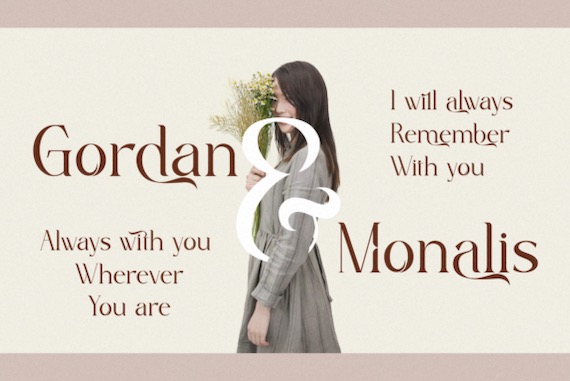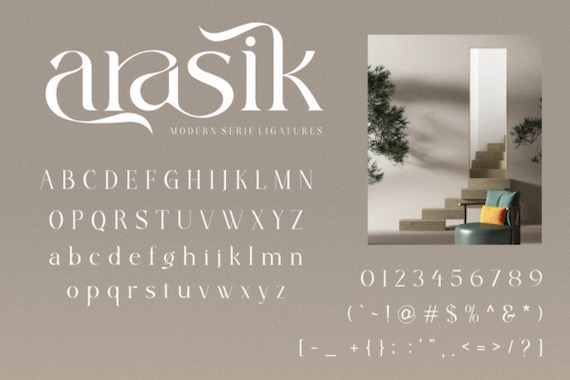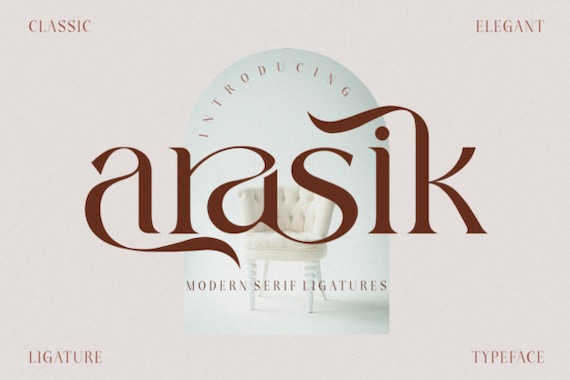
Arasik is a stylish, modern, and light serif font that was created and shared by Penatic Studio. Moreover, this basic font is PUA encoded which means you can access all of the glyphs and swashes with ease! Add it to any of your designs, and enjoy the results!
Arasik Serif Font